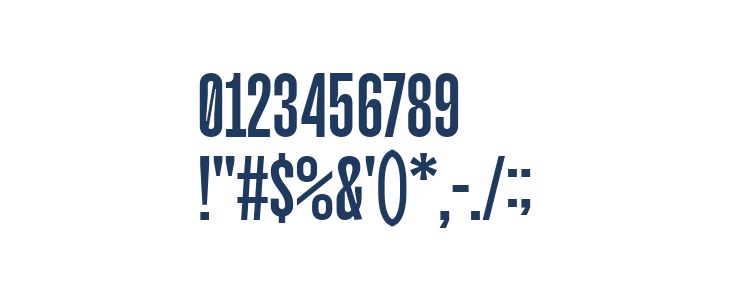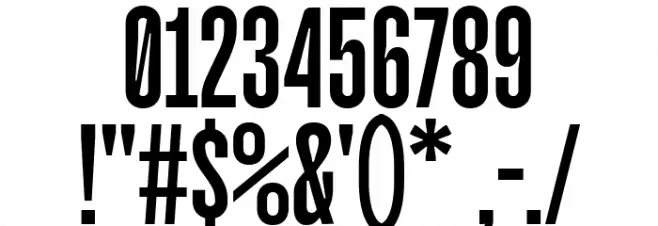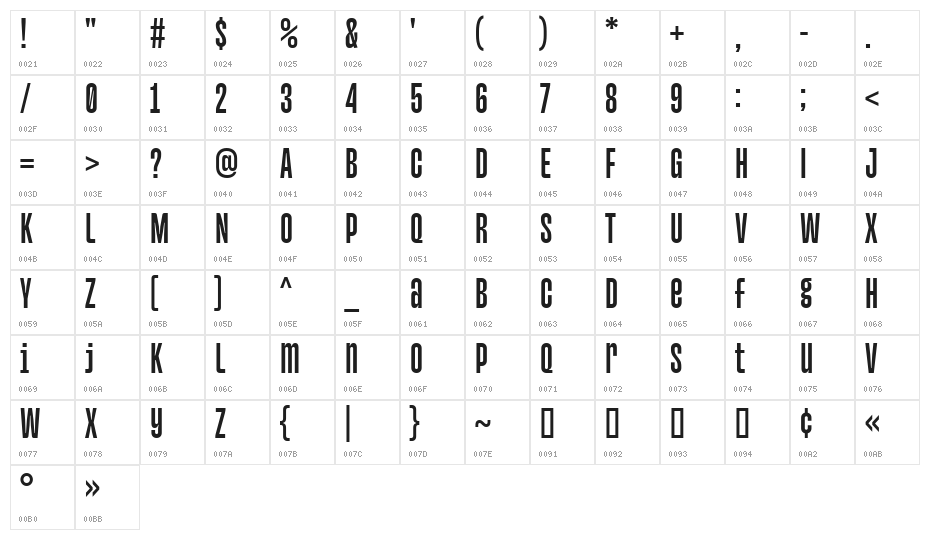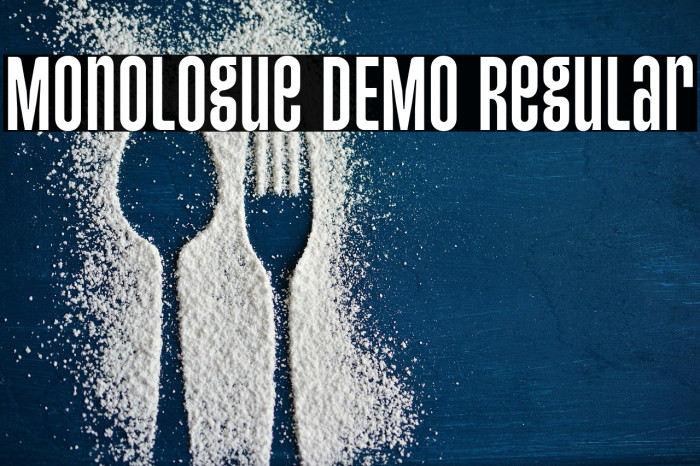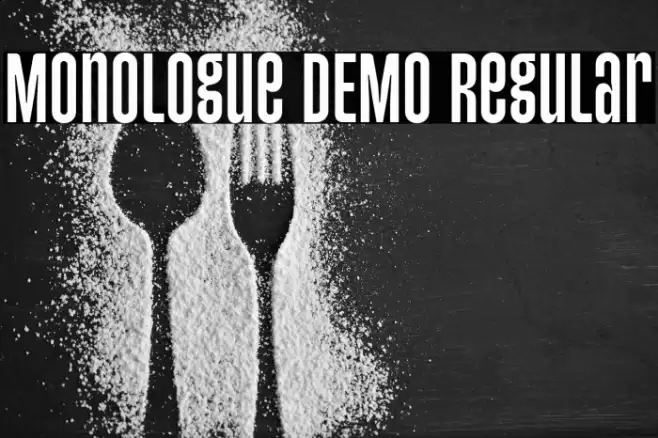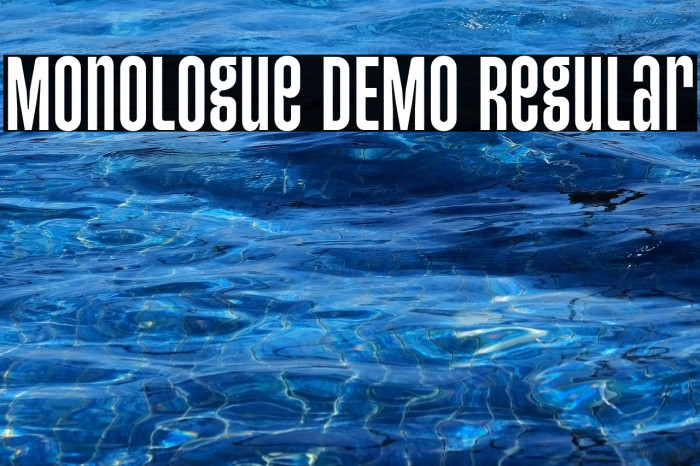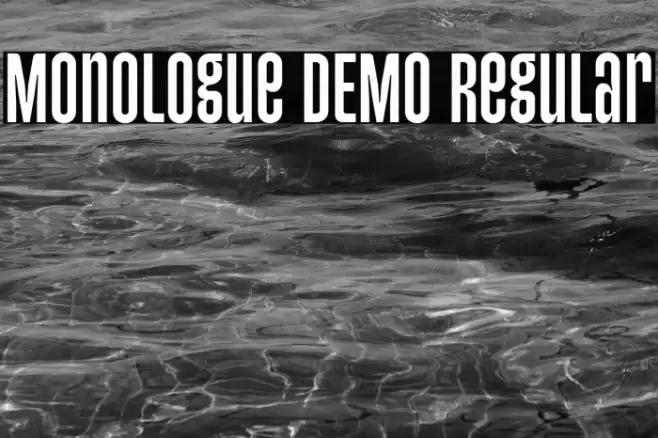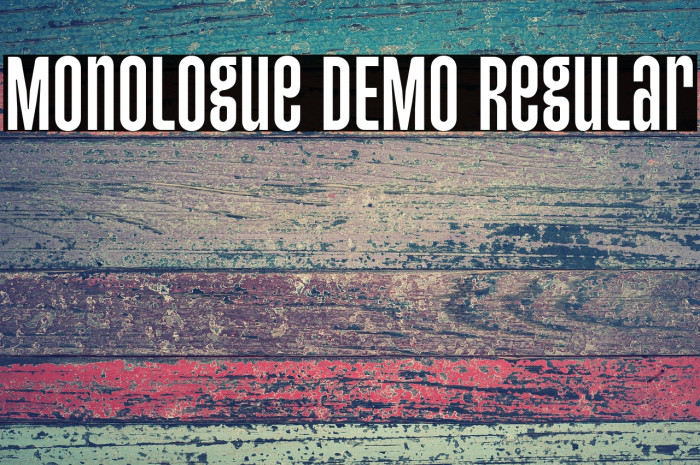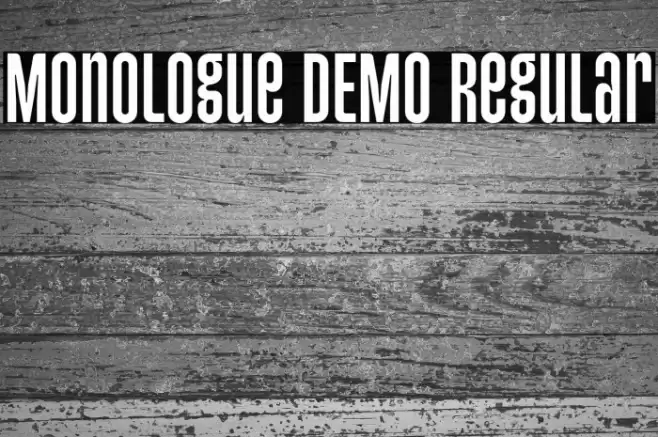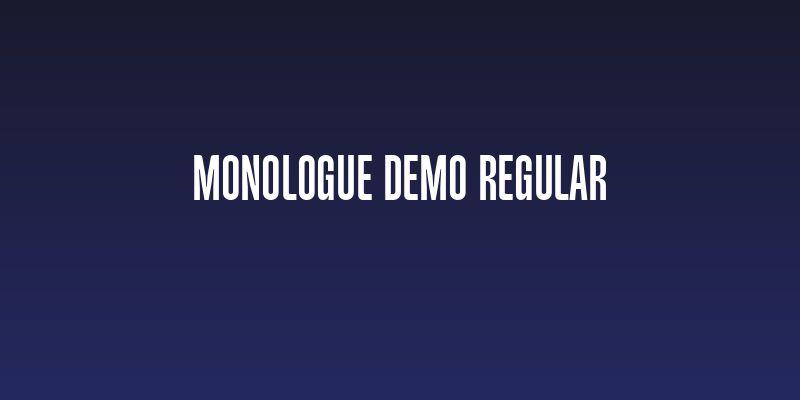
Monologue DEMO Regular Font
Monologue DEMO Regular Description
This typeface features a bold and impactful design with tall, narrow characters that convey a strong presence. The uppercase and lowercase letters maintain a consistent height, contributing to a uniform and cohesive look. The numerals are equally bold, ensuring readability and emphasis. Special characters are designed with the same boldness, making them stand out effectively. The overall style is modern and assertive, suitable for making a statement in any design project.
Proposed ProjectsIdeal for headlines, posters, branding, and advertising where a strong visual impact is needed.